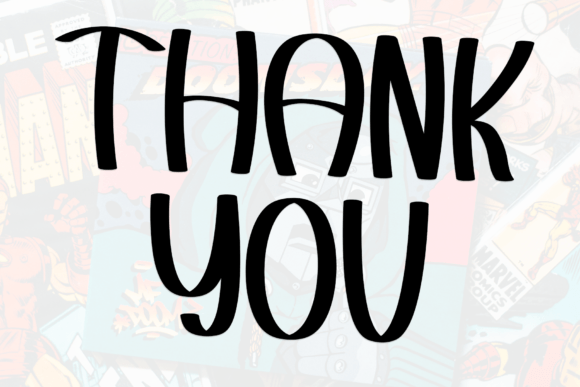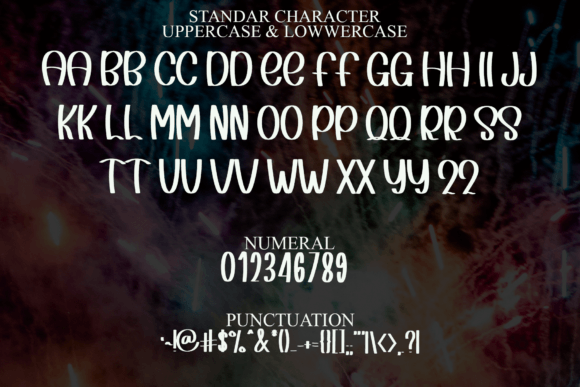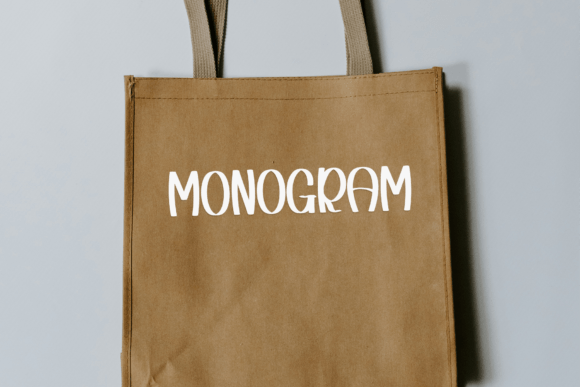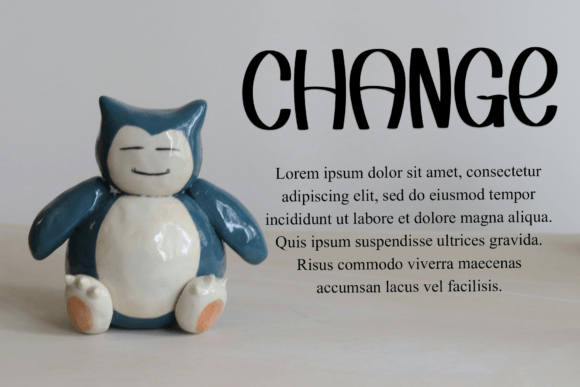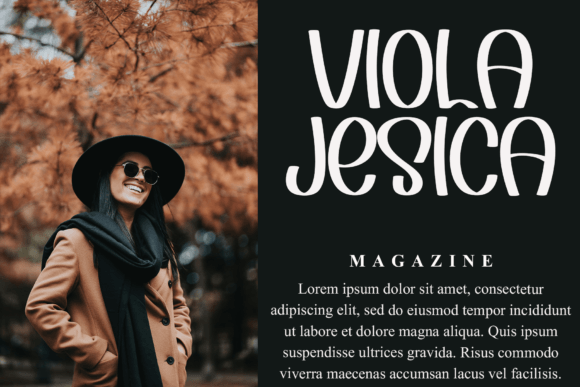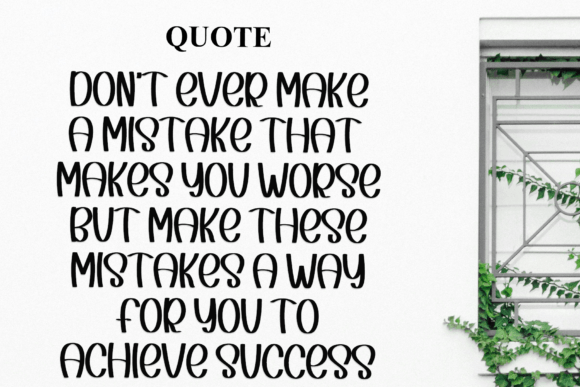
Introducing Comic Daily Font: Add a Pop of Fun to Your Designs!
Are you tired of using the same old fonts in your designs? Do you want to add a touch of playfulness and excitement to your text? Look no further than Comic Daily Font! This fun and playful font is perfect for making your text look lively and exciting, just like hand-drawn letters from a comic book.
What is Comic Daily Font?
Comic Daily Font is a unique and creative font that mimics the style of comic book letters. Its hand-drawn look and feel make it perfect for designs that require a fun and playful touch. Whether you’re a designer, crafter, or simply someone who loves to add a personal touch to their projects, Comic Daily Font is a great addition to your font collection.
Key Features of Comic Daily Font
- Hand-drawn look: Comic Daily Font has a unique, hand-drawn look that gives it a personal and playful feel.
- Comic book style: The font is inspired by comic book letters, making it perfect for designs that require a fun and exciting touch.
- Easy to read: Despite its playful look, Comic Daily Font is easy to read and understand, making it perfect for use in a variety of designs.
- Versatile: Comic Daily Font can be used in a variety of designs, from digital projects to print materials.
Uses for Comic Daily Font
Comic Daily Font is perfect for a wide range of designs, including:
- Comic books and graphic novels: The font’s comic book style makes it a natural fit for comic books and graphic novels.
- Posters and flyers: Add a pop of fun to your posters and flyers with Comic Daily Font.
- Digital graphics: Use Comic Daily Font to add a playful touch to your digital graphics, such as social media posts and blog headers.
- Crafting projects: Comic Daily Font is perfect for crafters who want to add a personal touch to their projects, such as handmade cards and scrapbook pages.
Tips for Using Comic Daily Font
Here are a few tips for using Comic Daily Font in your designs:
- Use it sparingly: While Comic Daily Font is fun and playful, it can be overwhelming if used too much. Use it sparingly to add a pop of interest to your designs.
- Pair it with other fonts: Comic Daily Font pairs well with other fonts, such as sans serif fonts. Experiment with different font combinations to find the perfect look for your design.
- Experiment with colors: Comic Daily Font looks great in a variety of colors. Experiment with different colors to find the perfect look for your design.
Comic Daily Font is a fun and playful font that’s perfect for adding a pop of excitement to your designs. Its hand-drawn look and comic book style make it a great choice for designers and crafters who want to add a personal touch to their projects. With its versatility and ease of use, Comic Daily Font is a great addition to any font collection.